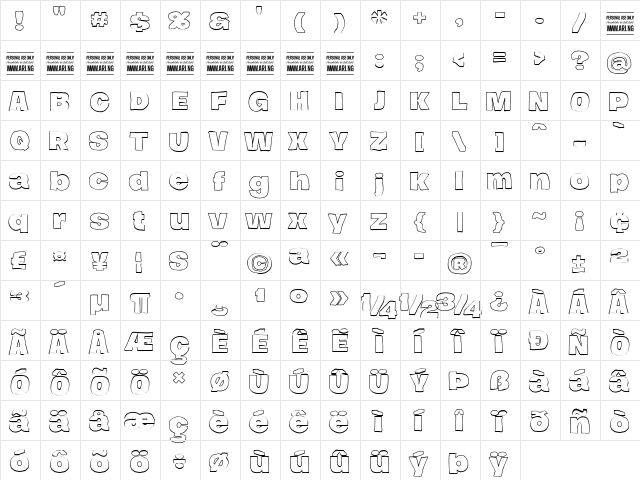
Hierograf Outline PERSONAL USE Regular
| Foundry | Mans Greback |
| Designer | Mans Greback |
Design Context for Hierograf Outline PERSONAL USE Typeface
Hierograf Outline PERSONAL USE is built around its visual character rather than neutral utility — its distinctive forms are designed to make an impression at display sizes.
Font Pairing: Pair with a clean neutral sans-serif for body copy to let Hierograf Outline PERSONAL USE's character lead without overwhelming the composition.
Pro Tip: Treat Hierograf Outline PERSONAL USE as the centrepiece of your typographic hierarchy. One strong heading set in a decorative face can carry an entire layout.